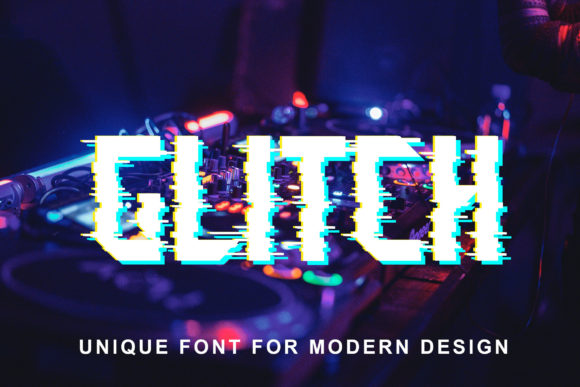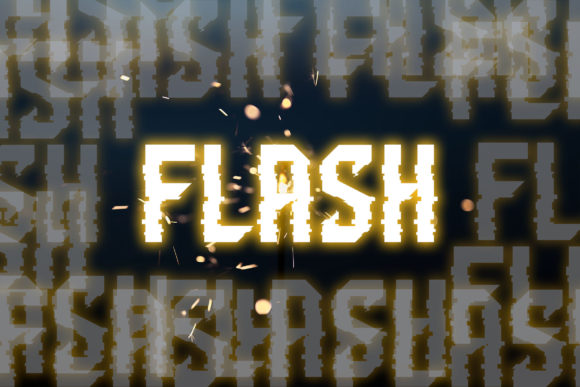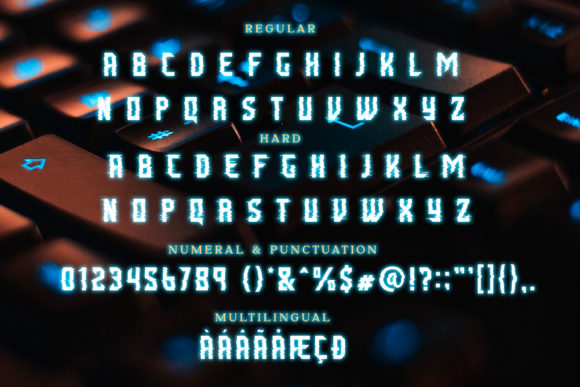
Glitch Font
Glitch is a cool, bold and assertive display font. This font is suitable for designs such as t-shirts, sportswear, logos, advertisements, clothing, and more.